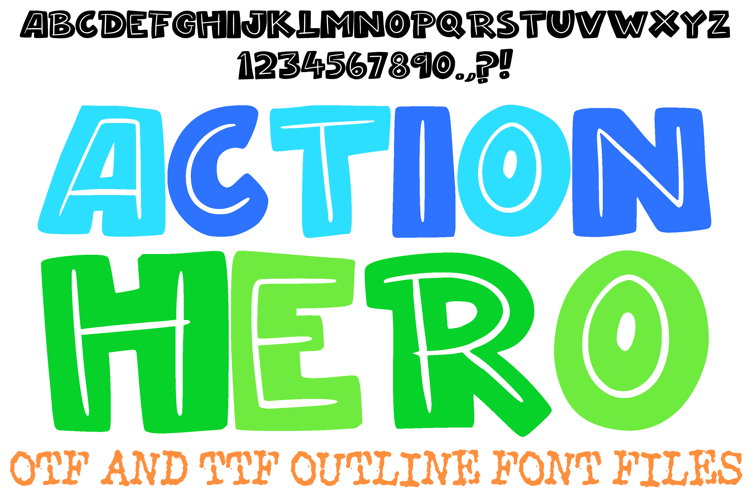
The Action Hero Font is a bold, high-impact display typeface inspired by the golden age of comic books and classic animation. Featuring heavy, solid block letterforms accented with a distinct internal highlight line, this font creates an instant 3D "pop" effect. It is a premier tool for designers working on superhero-themed branding, high-energy event posters, gaming graphics, and custom apparel.
Crafted with a focus on power and visibility, Action Hero balances a weighty silhouette with a clean, modern edge. Whether you are designing a standout logo for a YouTube gaming channel or creating bold, punchy headers for a streetwear brand, this font’s heroic presence ensures your message is delivered with maximum impact.
Dynamic Double-Outline Aesthetic: The thin internal line provides a built-in highlight effect, adding depth and a professional "glossy" feel to every character.
Heavyweight Power: The thick, sturdy proportions of the letters make it ideal for titles that need to dominate the page and command attention.
Nostalgic Cartoon Vibe: Perfect for projects requiring a retro, Saturday-morning cartoon aesthetic or a modern comic book style.
Optimized for Multi-Layering: The clean, solid paths are specifically designed for easy color-layering and weeding with cutting machines like Cricut and Silhouette.